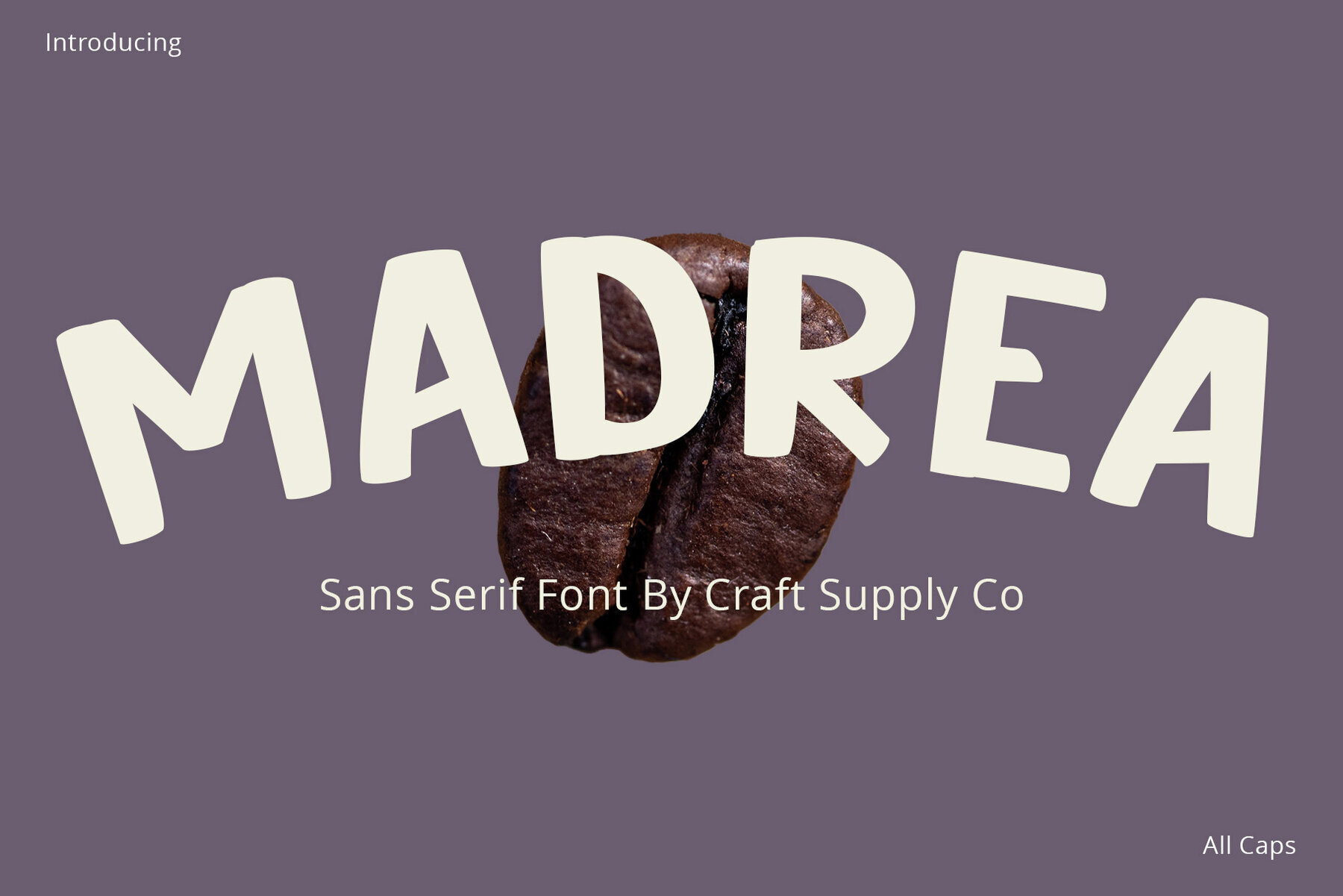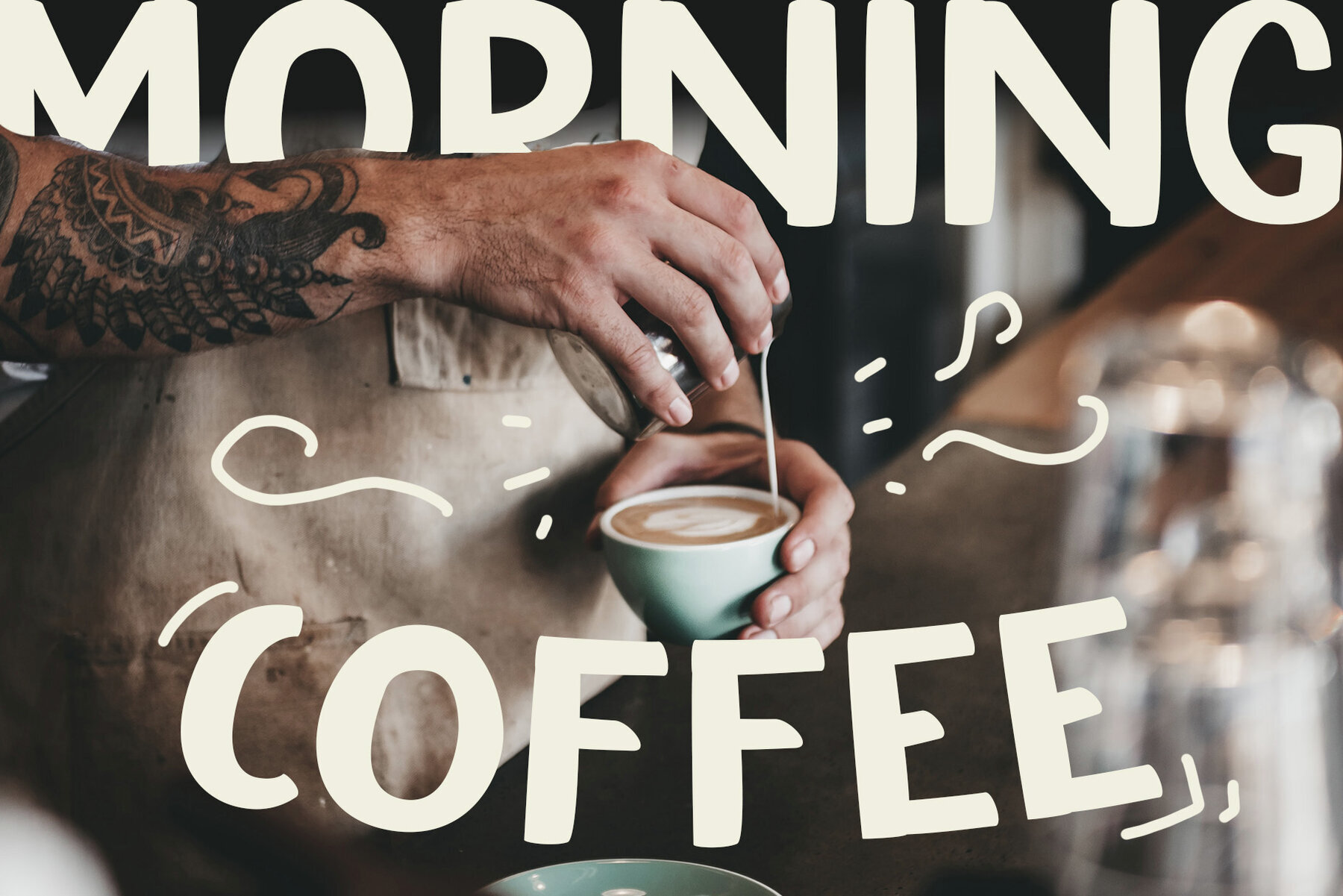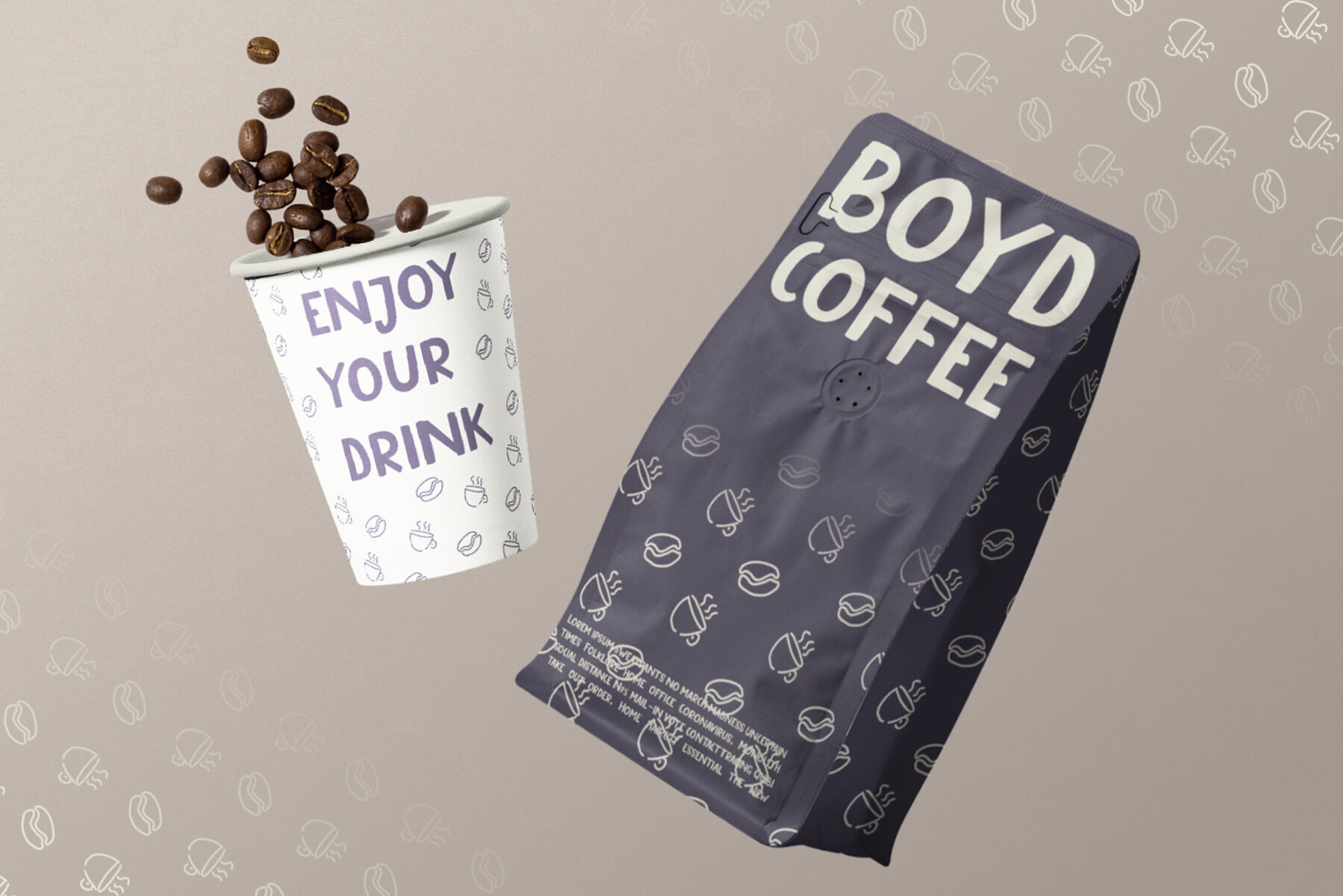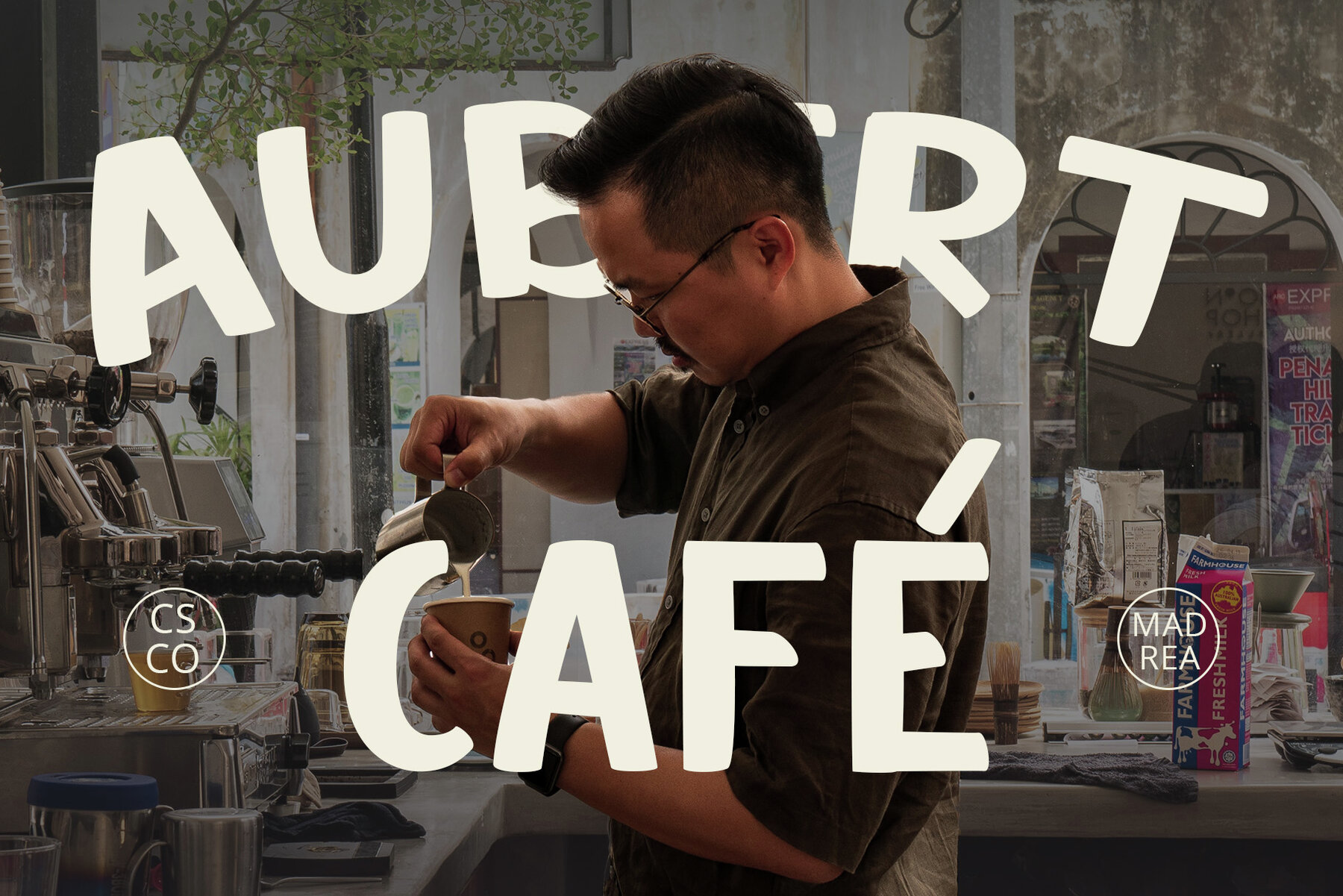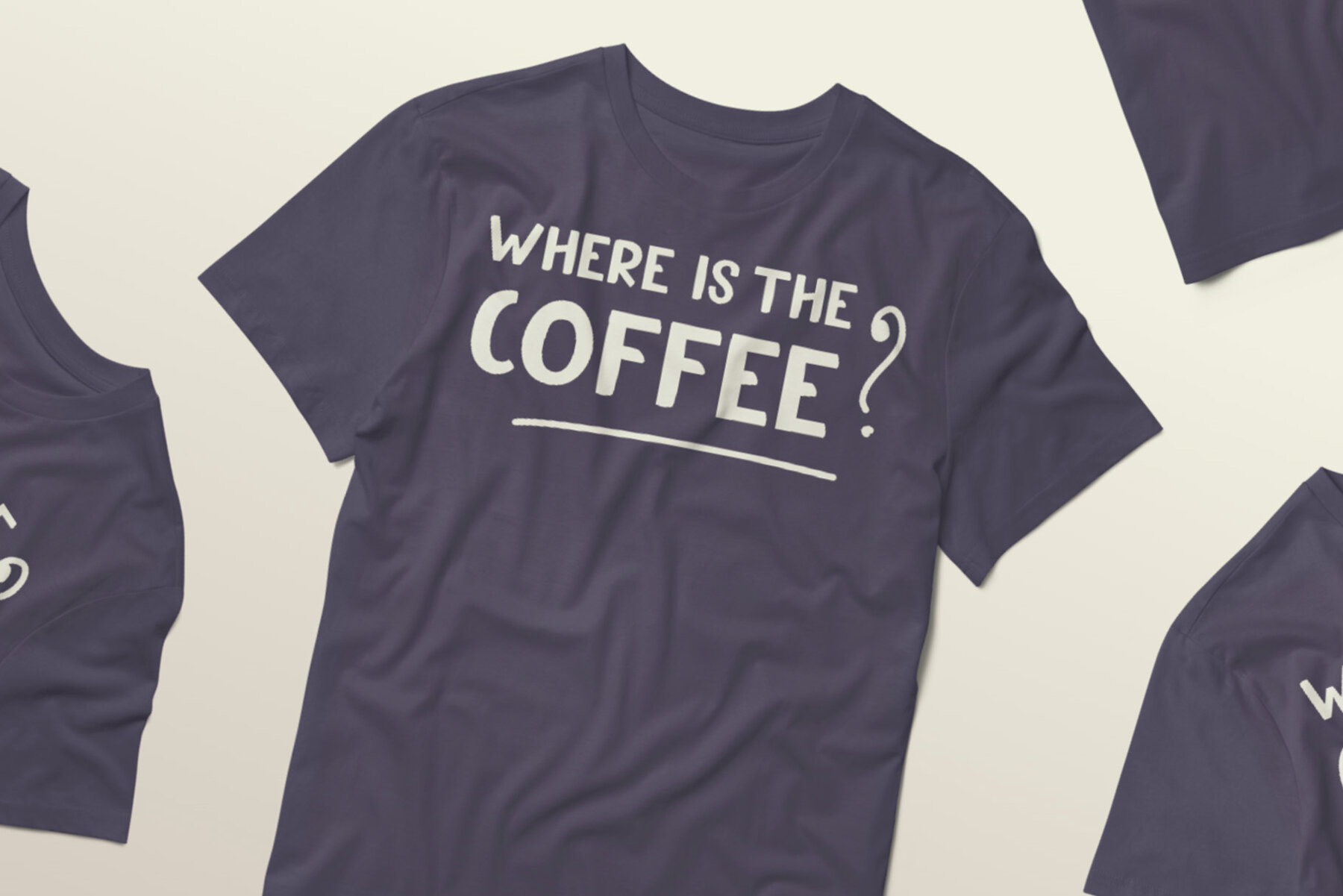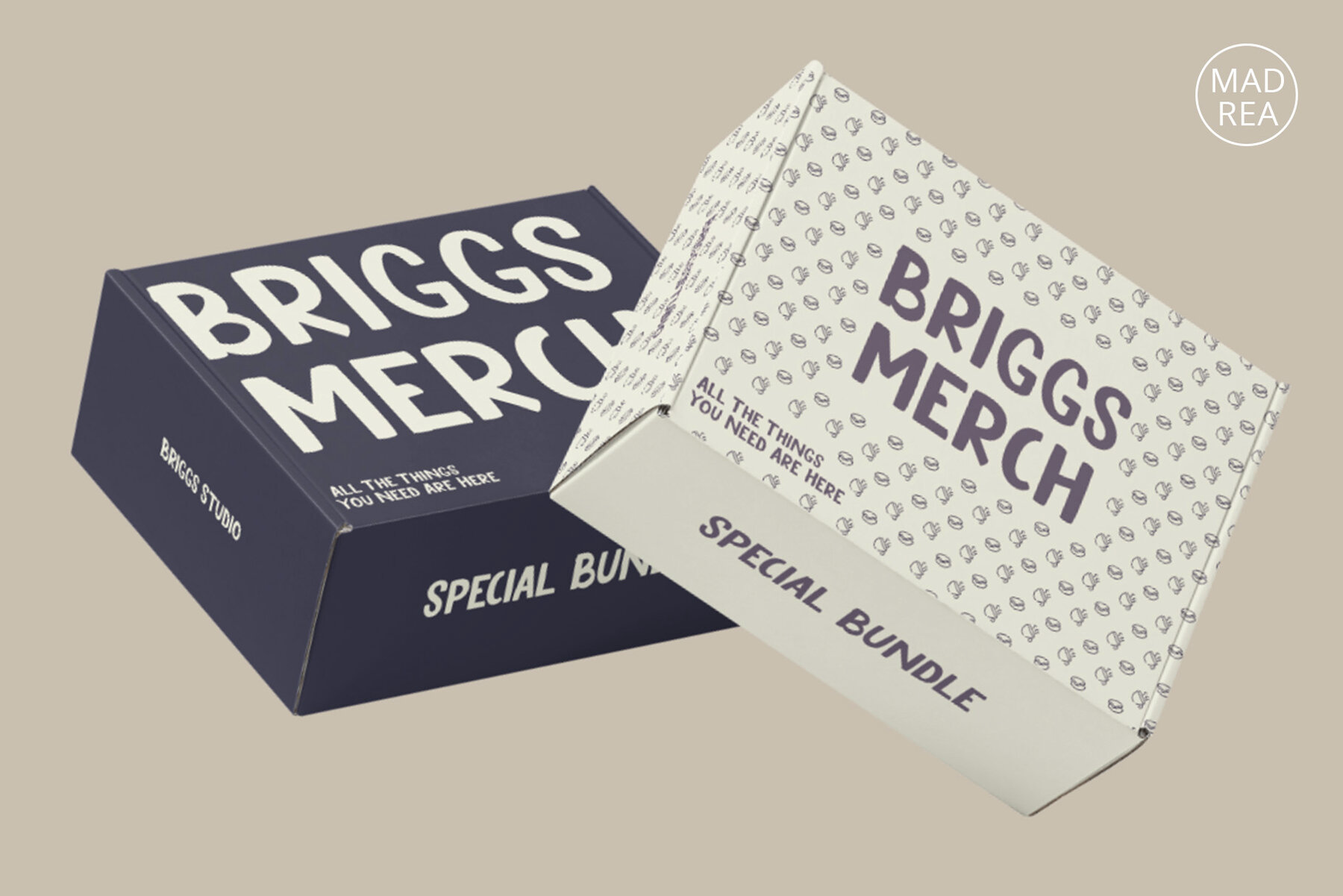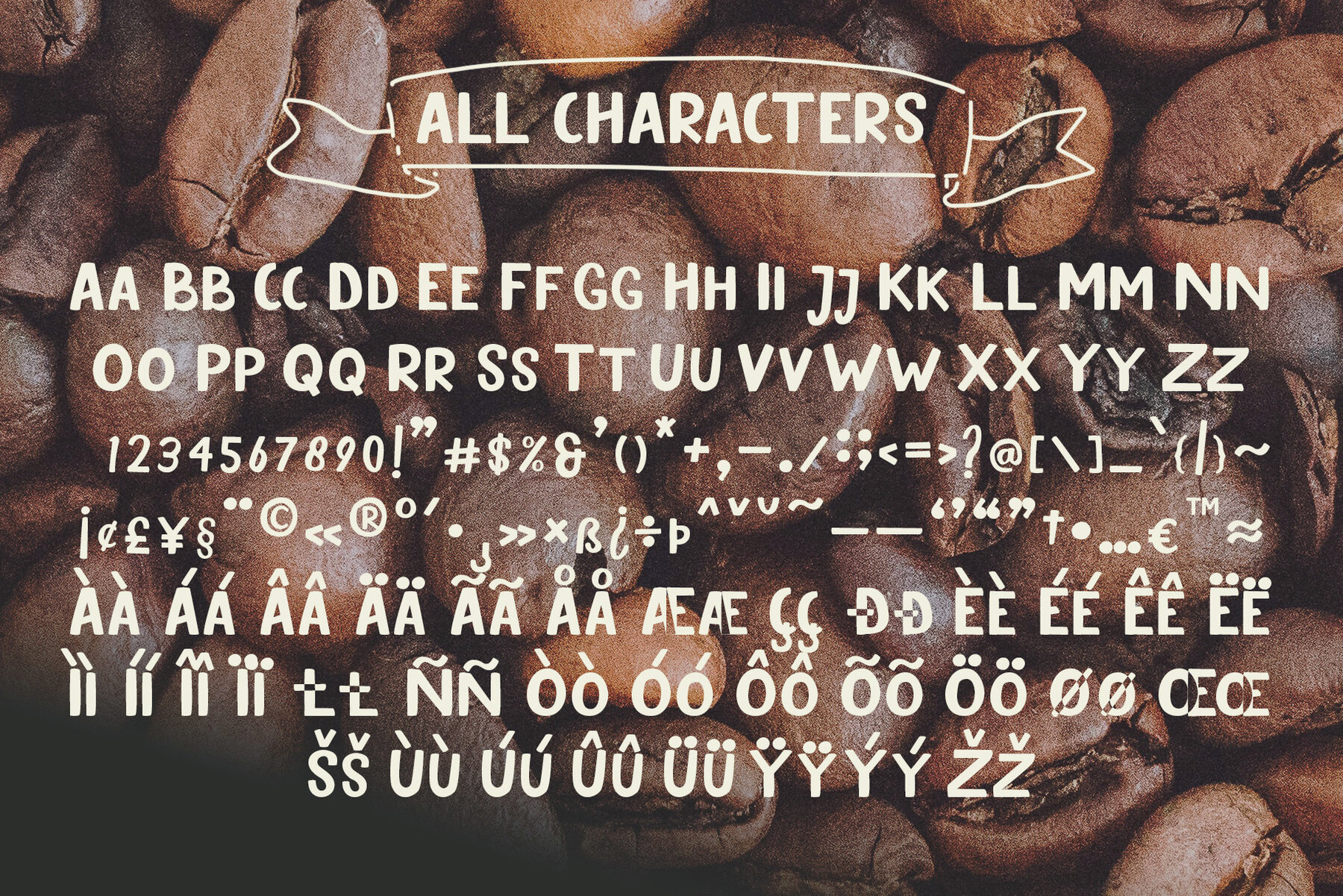
Madrea Font
Madrea Regular
Madrea presents a unique twist that sets it apart in the world of sans serif fonts. Designed to infuse your project with an inviting and personable touch, this font steps away from the traditional and predictable designs.Madrea: A Friendly and Unconventional Sans Serif